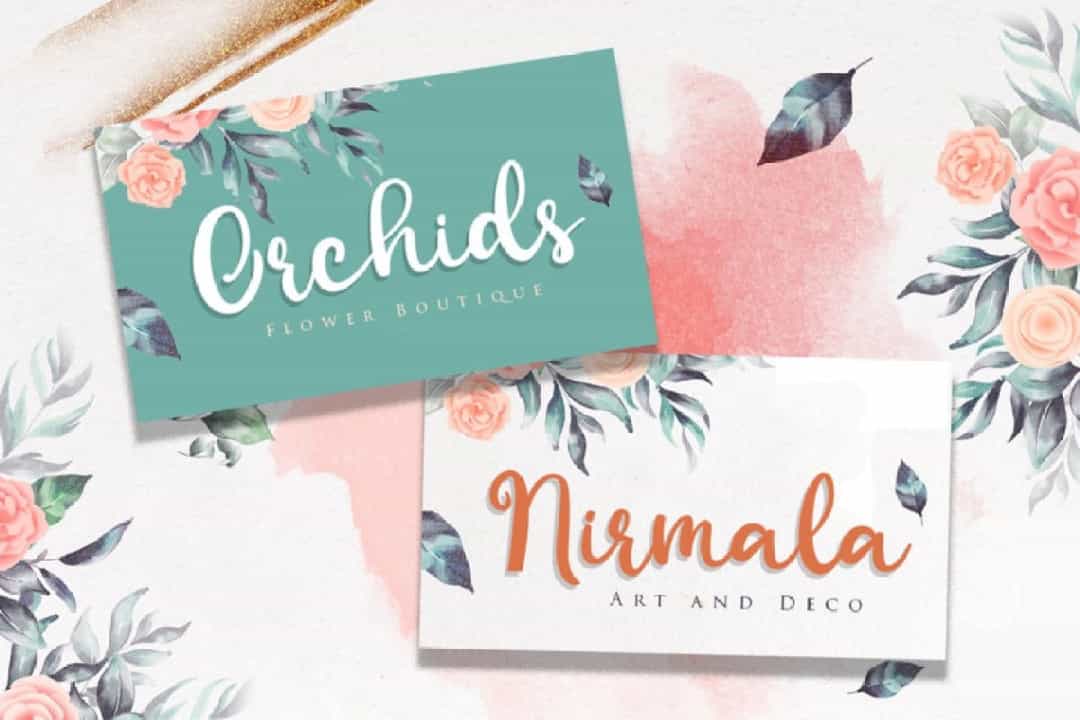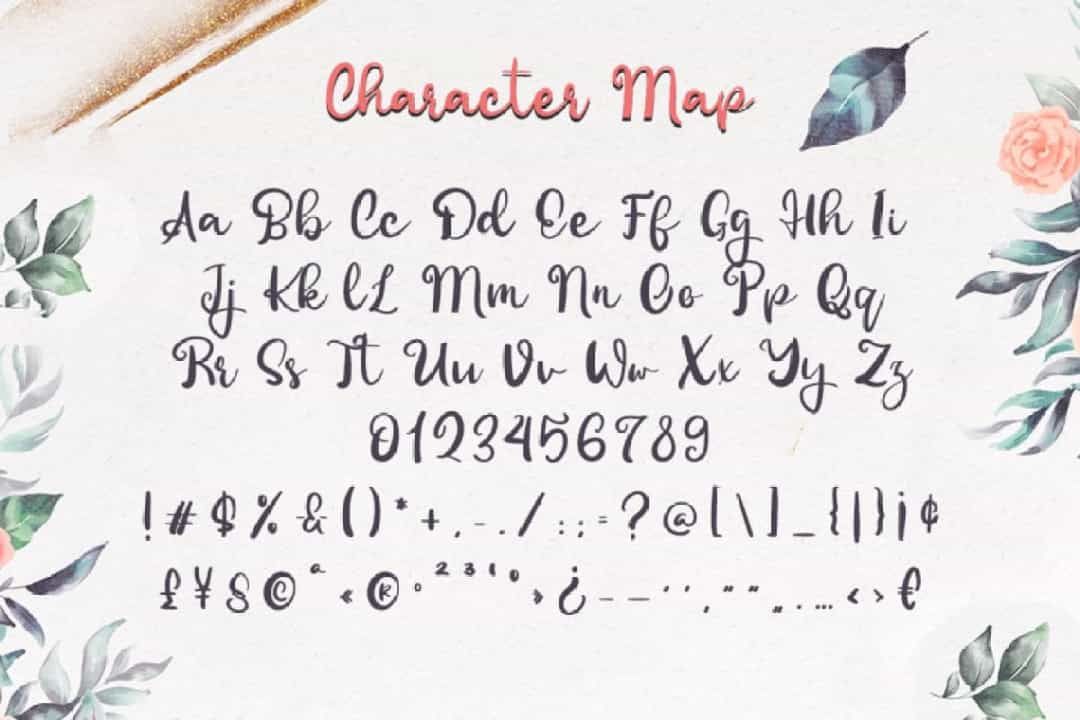
Karya Abadi is a splendid font that was developed to celebrate holidays, for instance, Christmas, autumn, and even valentine. It has a beautiful style that will look great whether it is combined with other elements or used as a headline on its own!